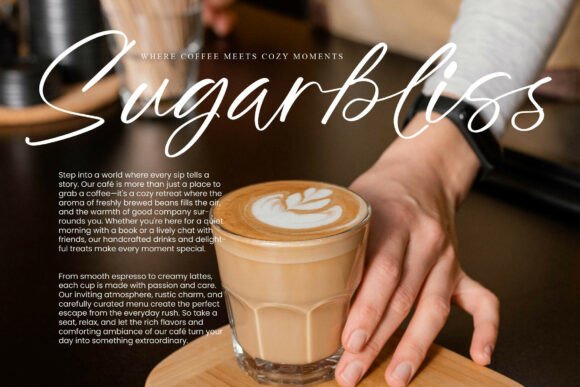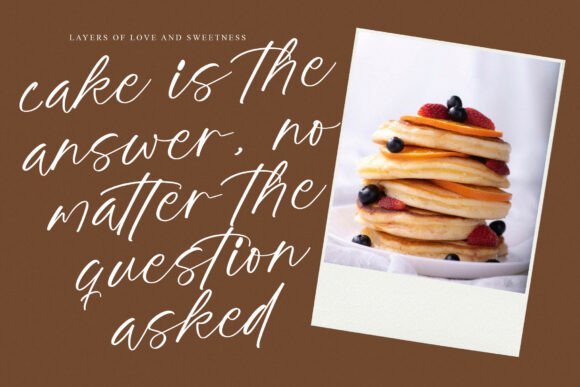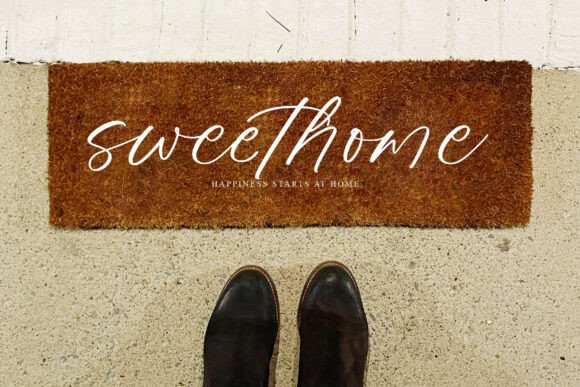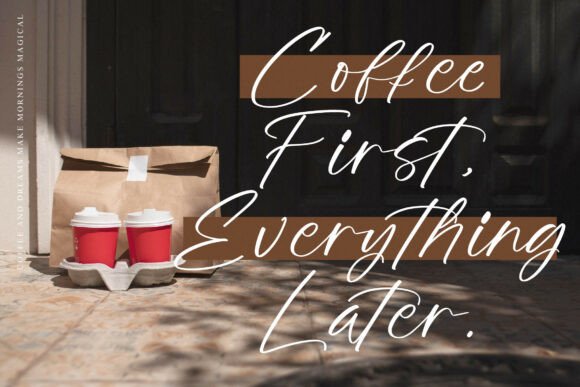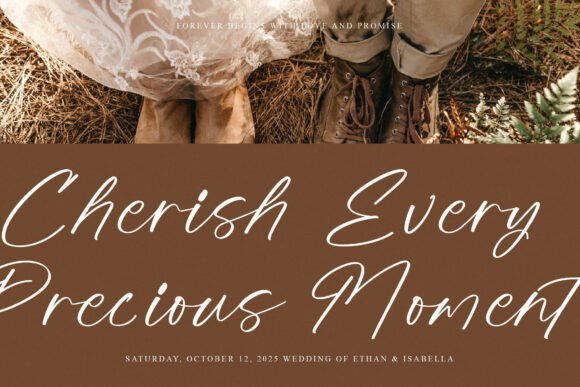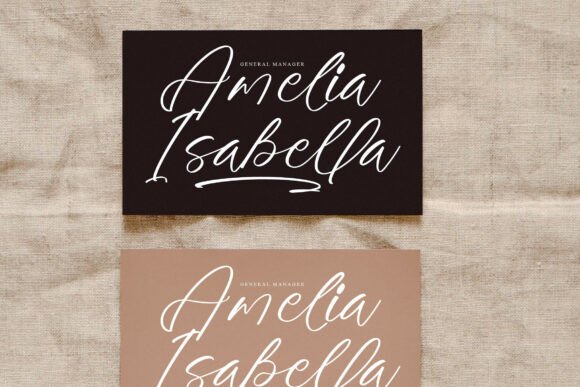
Introduction to Palmeras Sherffy Font
Palmeras Sherffy is a modern handwritten script font with a refined flow and natural movement.
Its stylish curves, graceful ligatures, and swashes make it an ideal choice for high-end branding, wedding stationery, fashion editorials, and signature logos .